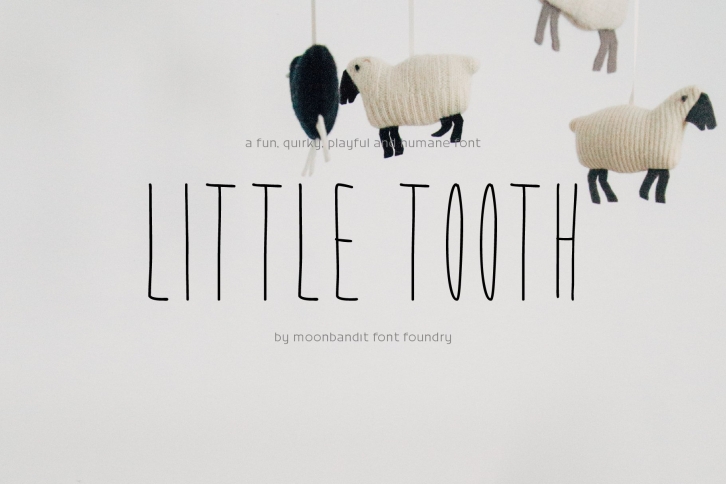
MBF Little Tooth is a beautiful font that was designed by MoonBandit. It's a great choice for designers and creatives who need such a font. It was released on May 7, 2021 and the file size is 20.85 MB. MBF Little Tooth may give a more youthful, expressive and casual look to your project. It is a very beautiful, refined, elegant, and high-quality font.